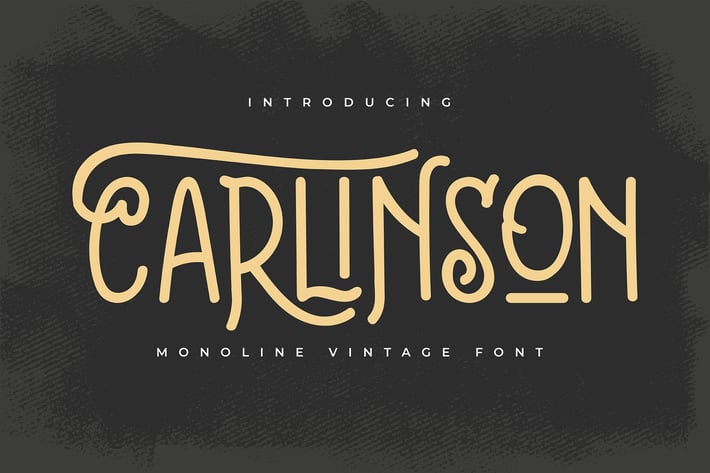
Carlinson | Monoline Vintage Font
Carlinson | Monoline Vintage Font with a calligraphy style, So beautiful on invitation like greeting cards, branding materials, business cards, quotes, posters, and more!